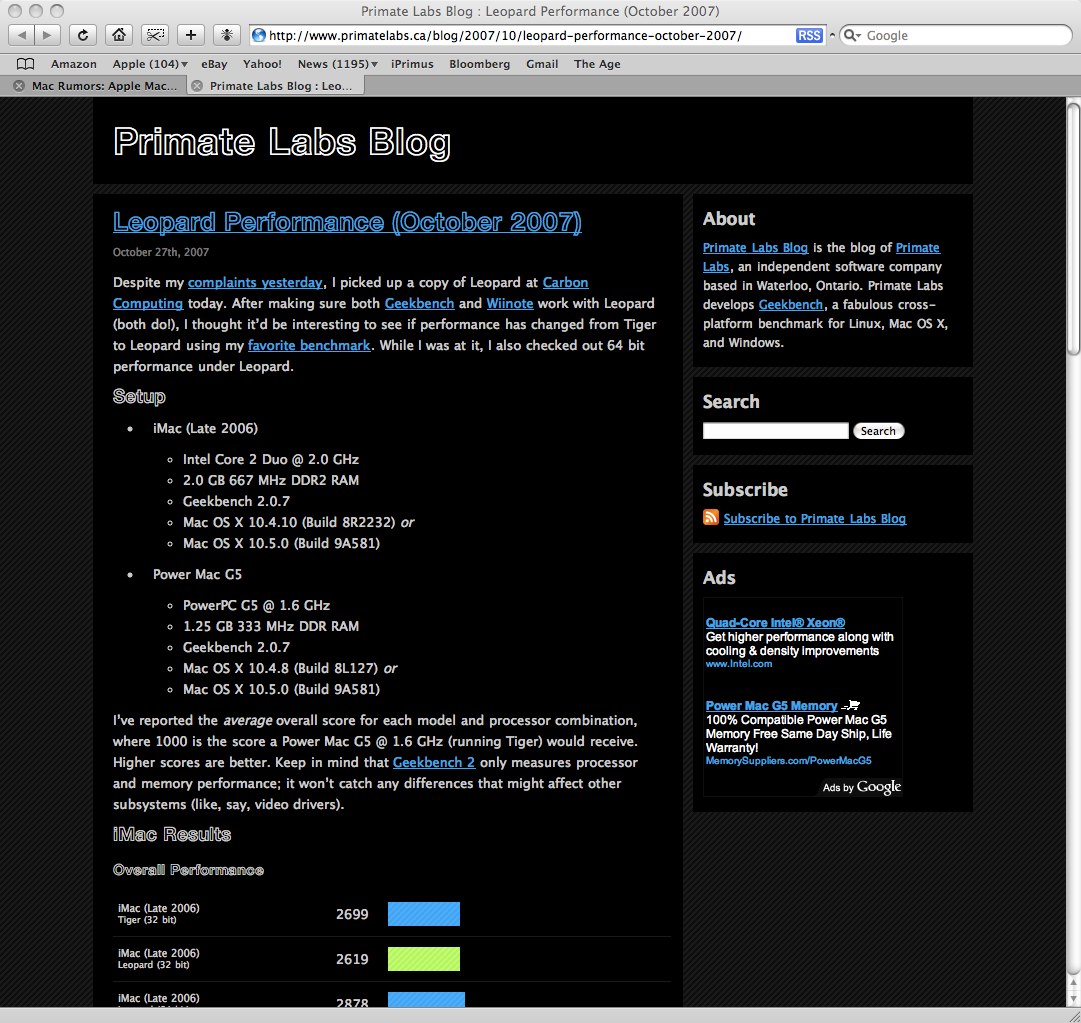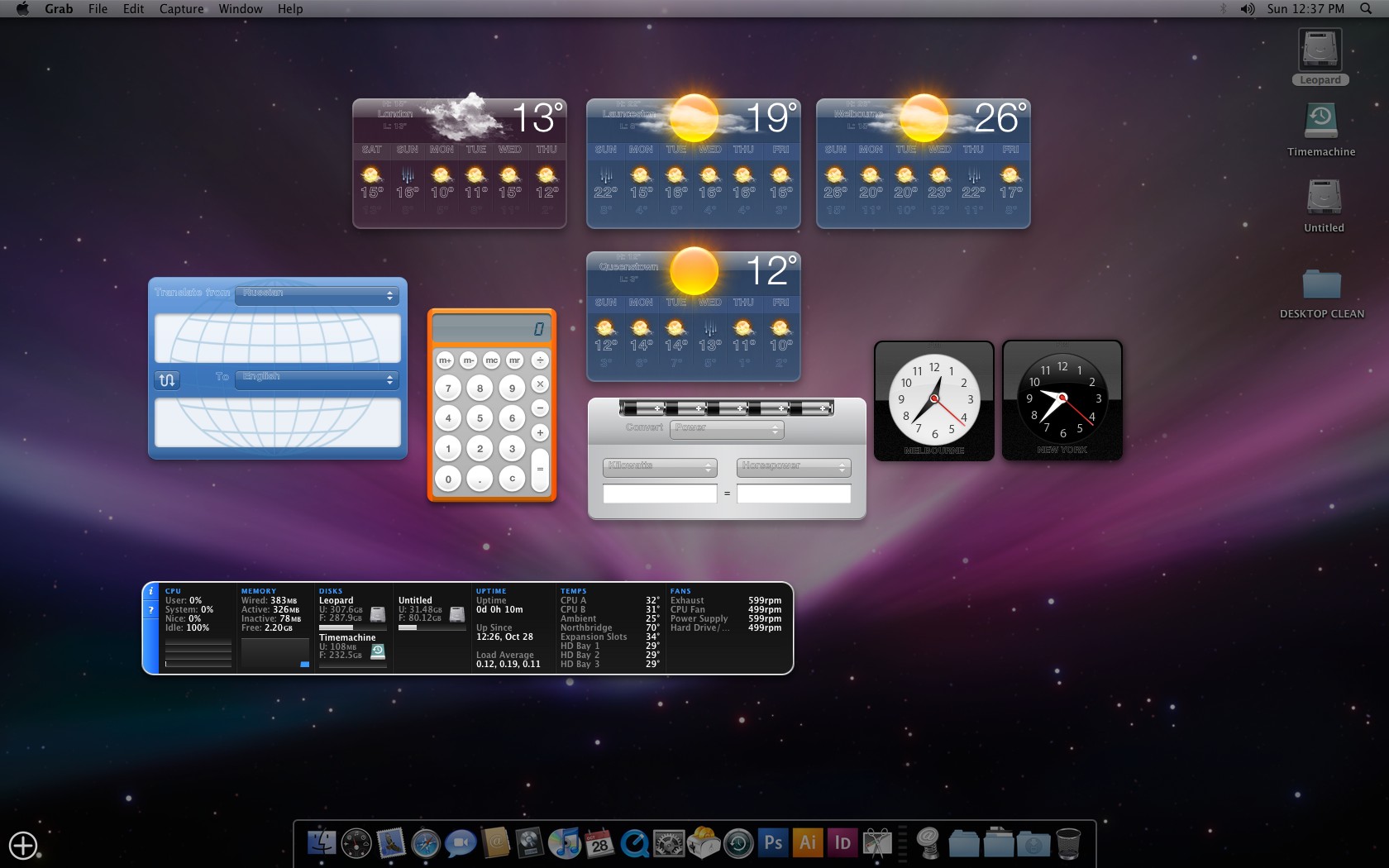
I've clean installed Leopard and put in my fonts as used previously in Tiger, which are common commercial fonts such as Din, Dax etc.
Now in various apps such as Dashboard and Safari the 'default' system display font in those apps is kind of a strange outline rather than the normal solid text. See attachment to see what I mean. Note that apart from Leopard the system, including the fonts, is identical and this problem is new after the Leopard install.
Has anyone else had this issue? If so, how did you solve it?
ever since upgrading to leopard, my fonts in dashboard are screwed up as well. They use some big heavy ugly font instead of the one it's supposed to use. I don't know how to resolve this, and I am hoping an update will come out.
i am having the same problem. I sort of fixed it by going to font book and disabling helvetica neue. i'm pretty sure that font is the majority of the problem. i disabled just helvetica neue outline, and it changed all the outline fonts to helvetica neue black, so i disabled the whole font, and now the only problem is a slight baseline shift up. most of my widgets look... good enough. there is still a pretty significant baseline shift on the date on my ical icon in the dock tho (see below). if anyone figures that out, i'd love to know.
Yes I can confirm that de-activating Helvetica Neue in Fontbook does get rid of the problem🙂 however, now there is no helvetica neue🙄
I wonder why this one font is the problem...
Also, the baseline shift problem didn't occur for me - sorry smallen13 - so everything seems to be OK font wise.
I was having the same problems. I deleted every other variation of Helvetica in my ~/Library/Fonts folder. Restarted and everything was back to normal.
I'm a designer and losing Helvetica (except for the system font), sucks. But, having the computer run smoothly is more important.
I couldn't find a way to clear the font cache with fontbook...
It looks like Leopard changed the way to clear the fonts caches, so I'm not sure how to in Leopard.
But that folder doesn't exist on Leopard anymore. Instead there are files there which look like they might be cache file, but I wouldn't recommend messing with them unless someone else responds that that is the correct way to fix this.
So...along these lines, does Fontbook actually work in Leopard? In Tiger I could never seem to get it to identify any of the fonts in my user library...